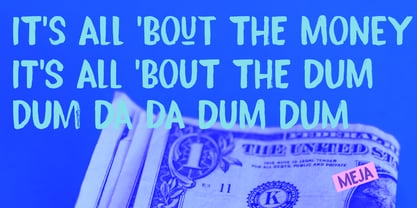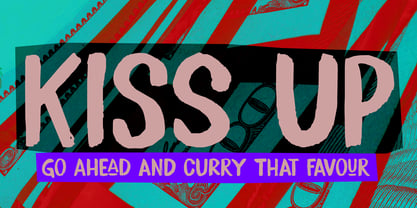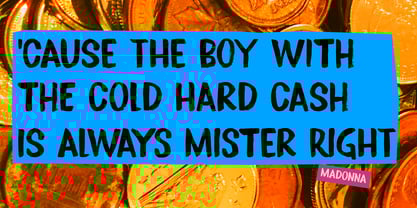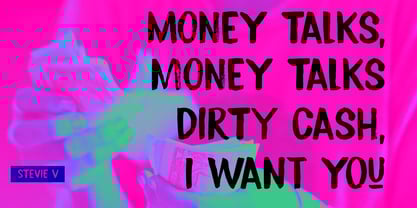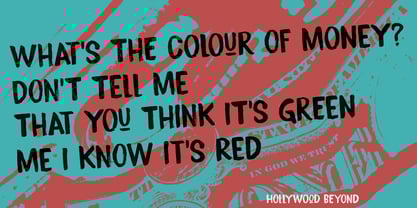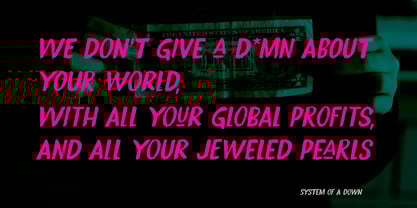
Kiss Up
by Hanoded
The Kiss Up Font Family was designed by David Kerkhoff and published by Hanoded. Kiss Up contains 2 styles and family package options. More about this family
I is quite bizarre to see the heads of big corporations kiss up when someone comes into power. It sounds like a bad cliché, but unfortunately it’s not.
Kiss Up font is a handmade, brush font. It will look quite good on your book cover designs, your product packaging, signage and yes, even your protest signs!
Kiss Up comes with a full set of alternates for the lower case glyphs, some extra underscored glyphs and a really nice alternative ampersand. All for you to play with!
Hanoded is run by Dutchman David Kerkhoff. His fonts are a mishmash of styles, as he just creates whatever pops into his head. You will find a lot of brush fonts in his collection, as his favourite tools are brushes and Chinese ink, with cartoon style fonts and script fonts complementing his repertoire. Aside from making fonts, David occasionally guides tours in far-flung places, renovates his '30's house and tries reasoning with his wife and (teenage) kids. Not an easy task!